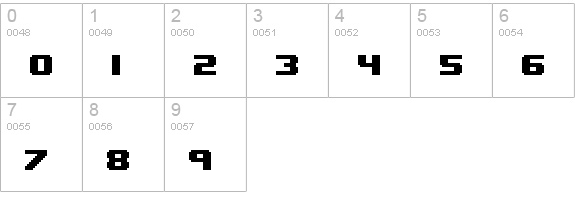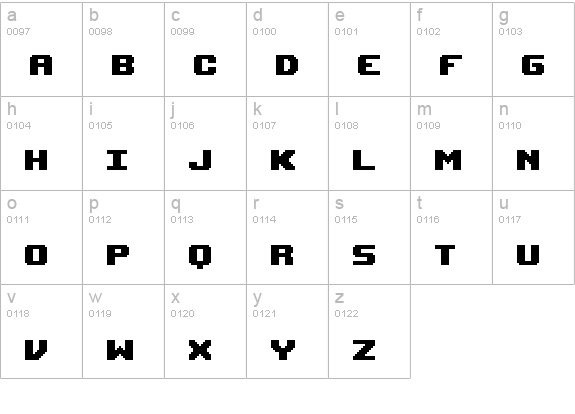
Upheaval TT BRK Font Details
Upheaval TT BRK font is a remarkable display typeface that exudes a sense of dynamism and energy. Its bold and unconventional design makes it perfect for making a statement and capturing attention. Each letter has been meticulously crafted with sharp edges and unique shapes, resulting in a font that is both edgy and captivating. This font is not only visually striking but also highly versatile. It can be used for a wide range of design projects, including logos, headlines, posters, and more. Its strong presence on the page guarantees that your message will be noticed and remembered. One of the best features of Upheaval TT BRK font is that it is freely available to download at FontsMarket.com. This means that you can enjoy its eye-catching aesthetics without having to worry about any financial constraints. Whether you are a professional designer or an aspiring creative, this font offers you the opportunity to enhance your projects with a unique and powerful visual impact. So why wait? Give your designs a touch of excitement and individuality with Upheaval TT BRK font. Download it for free today at FontsMarket.com and watch as your creations come to life with a burst of energy and style.